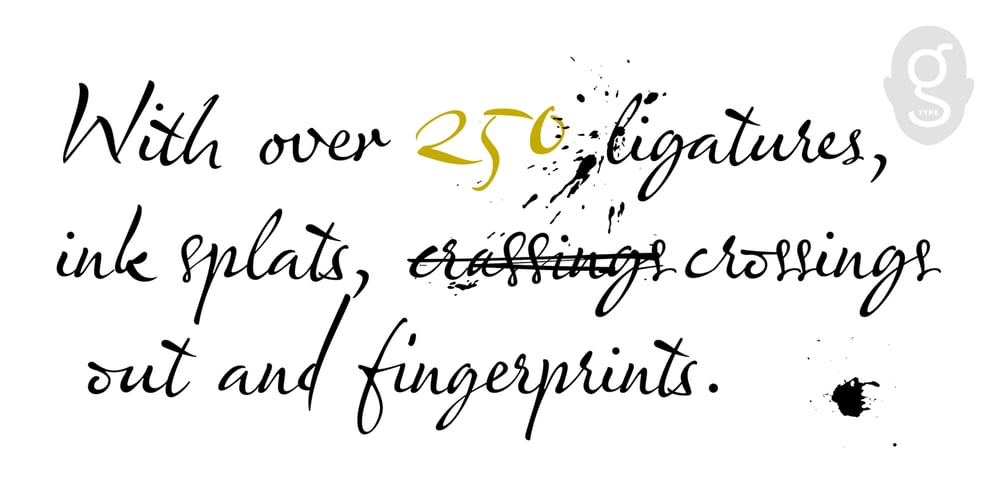
Olicana Font Family was designed by Nick Cooke and published by G-Type. Olicana contains 3 styles and family package options. Olicana is a best selling script which was named as one of Typographica’s typefaces of 2007. It was also the very first G-Type release in OpenType, ideal for script faces as there are endless possibilities for the automatic replacement of certain character combinations with ligatures resulting in a much more ‘realistic’ appearance. Olicana is brimming with alternates, swashes and extra features like ink splats and crossings-out, not to mention the choice of using a modern or ornate styling within the same font! All of which makes Olicana the perfect choice for an authentic, rather than typeset appearance. Available in 3 variants: Rough, Smooth and Fine.